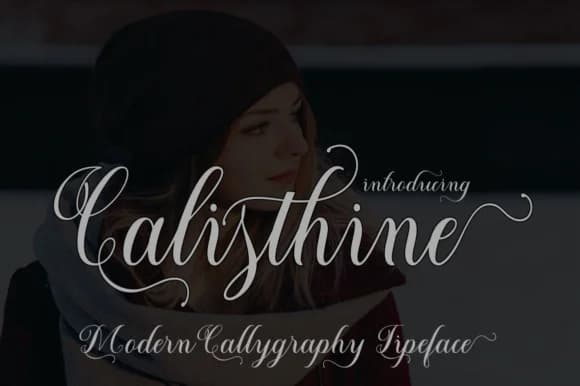
Calisthine by saidi studio is a flowing script typeface that brings sophisticated movement to contemporary design work. With its elegant letterforms and comprehensive stylistic alternates, this font offers designers genuine flexibility to create distinctive compositions that feel custom-crafted rather than templated. The carefully designed glyphset ensures smooth transitions between letterforms, giving projects a polished, hand-lettered quality without sacrificing readability. This typeface proves particularly effective for wedding stationery suites where personalization drives purchasing decisions, invitation cards, RSVP enclosures, and thank-you note designs all benefit from the font's refined presence. Beyond celebrations, Calisthine excels in creating event programs with personality, designing custom product labels for artisanal and small-batch businesses, and developing boutique packaging that stands out on shelves. The alternates feature enables subtle variation within single words, making it indispensable for bespoke logotypes, hand-lettered style branding, and signage where authentic, organic letterforms matter. Contemporary designers and brands seek the balance between legibility and ornamental beauty that Calisthine delivers across applications large and small. Whether you're designing intimate celebration materials, developing brand identity systems, or crafting premium packaging that communicates quality through typography, this typeface supports your creative vision. Find Calisthine on Creative Fabrica and bring this sophisticated script into your design toolkit.
- Elegant, Flowing, Calisthine
Calisthine Font is a script font that shines as a display or heading face. Pair it with a clean sans-serif or serif font for body text β the contrast creates a clear hierarchy while the two styles stay balanced and easy to read.
Calisthine Font
by saidi studio